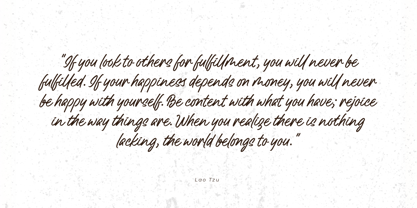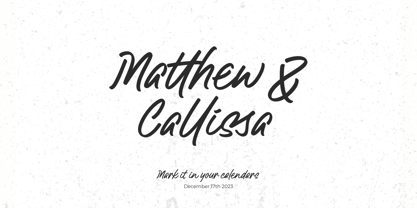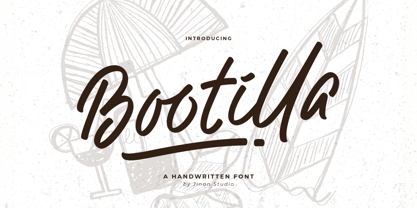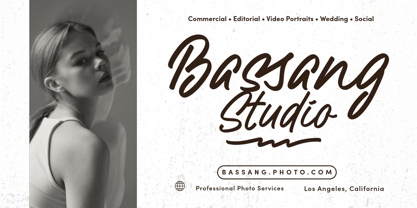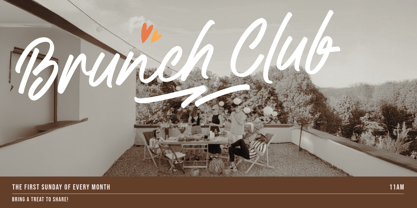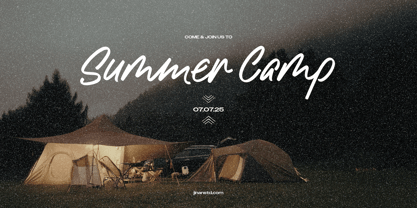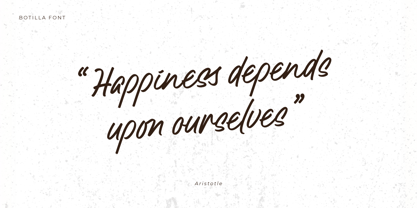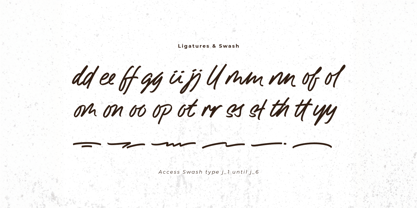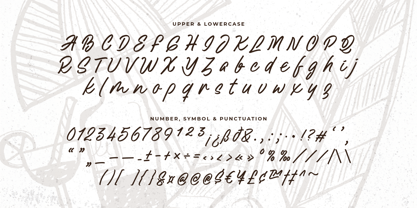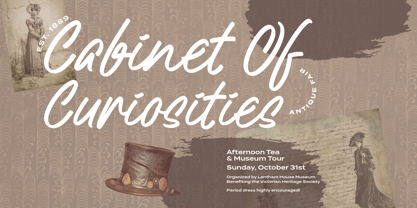
Bootilla
by Jinan Studio
The Bootilla Font Family was designed by Andi Syahdang, Ainun Jinan and published by Jinan Studio. Bootilla contains 1 styles. More about this family
Discover the empowering allure of Bootilla, an assertively bold yet smoothly drawn modern handwritten font. Ideal for brand identities, sleek logos, intriguing packaging, heart-touching quotes, and captivating social media designs. Bootilla’s flowing brush style exudes robust individuality, infusing every project with a sense of unique creativity and personal flair. Its harmonious balance of strength and elegance delivers artistry that captivates, turning the ordinary into extraordinary. Step into the dynamic world of Bootilla and elevate your designs to the next level of sophistication.
Features
• A set of uppercase and lowercase glyphs
• Number, symbol, and punctuation
• Multilingual Support
• Ligatures, and swashes
Designers: Andi Syahdang, Ainun Jinan
Foundry: Jinan Studio